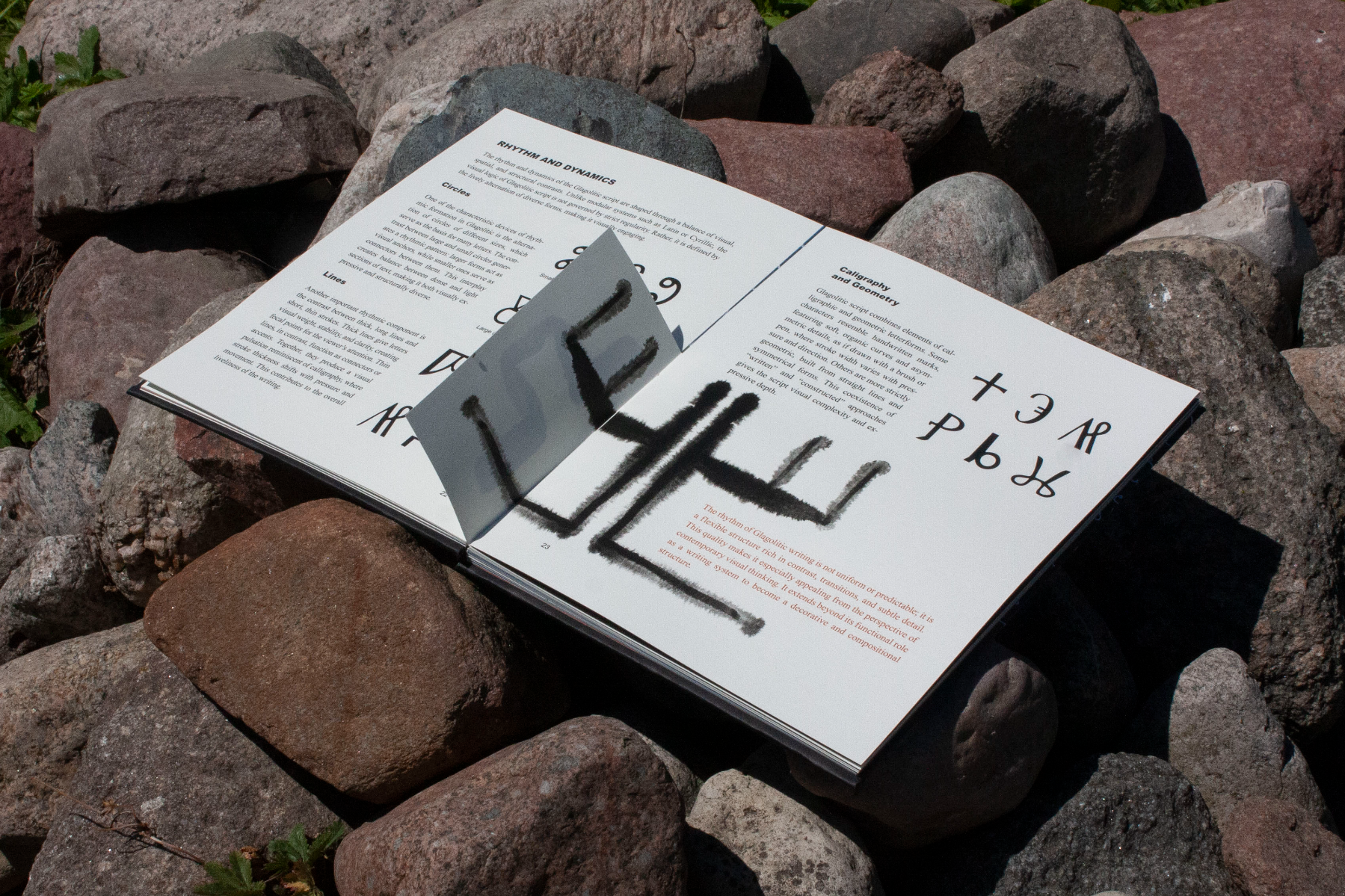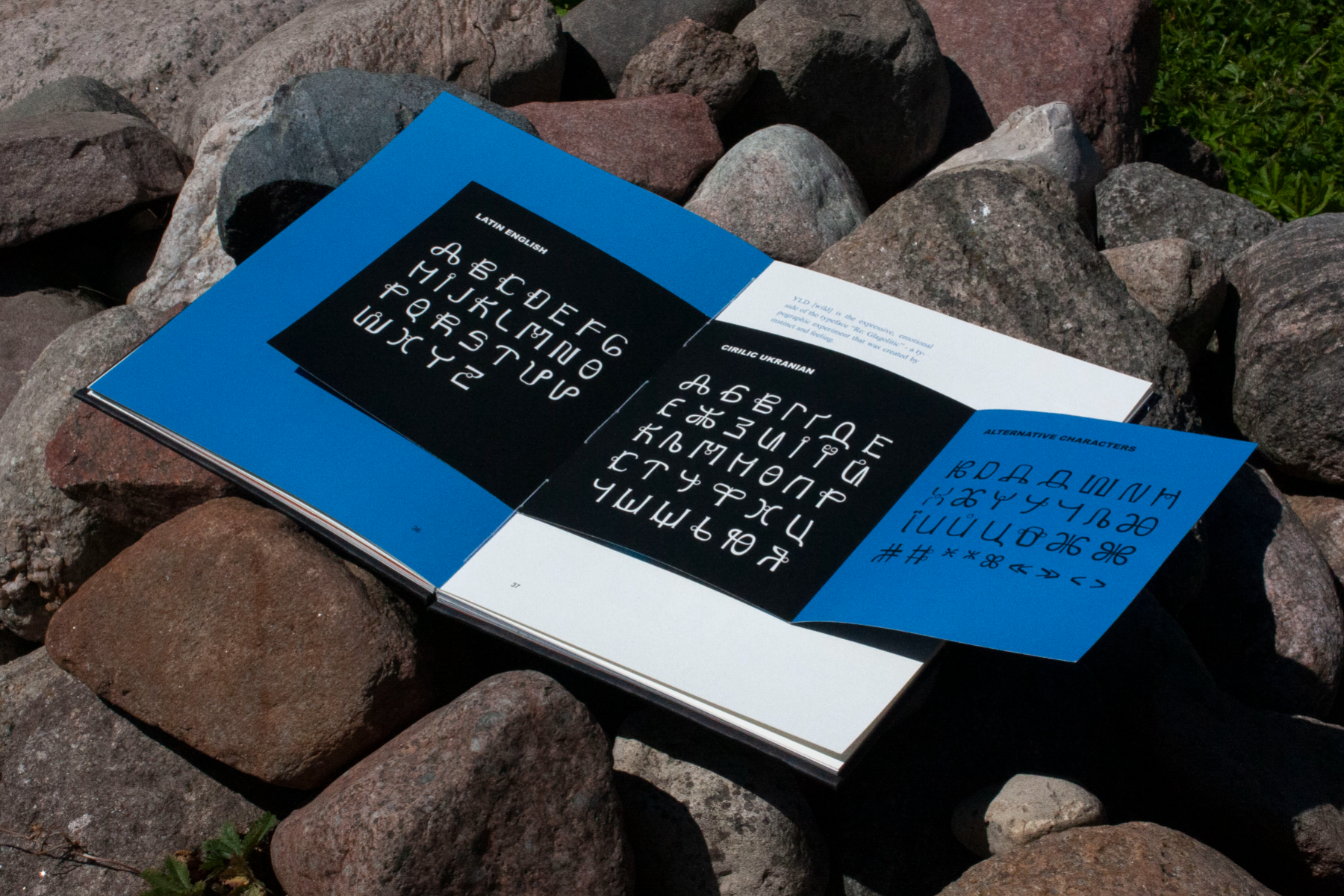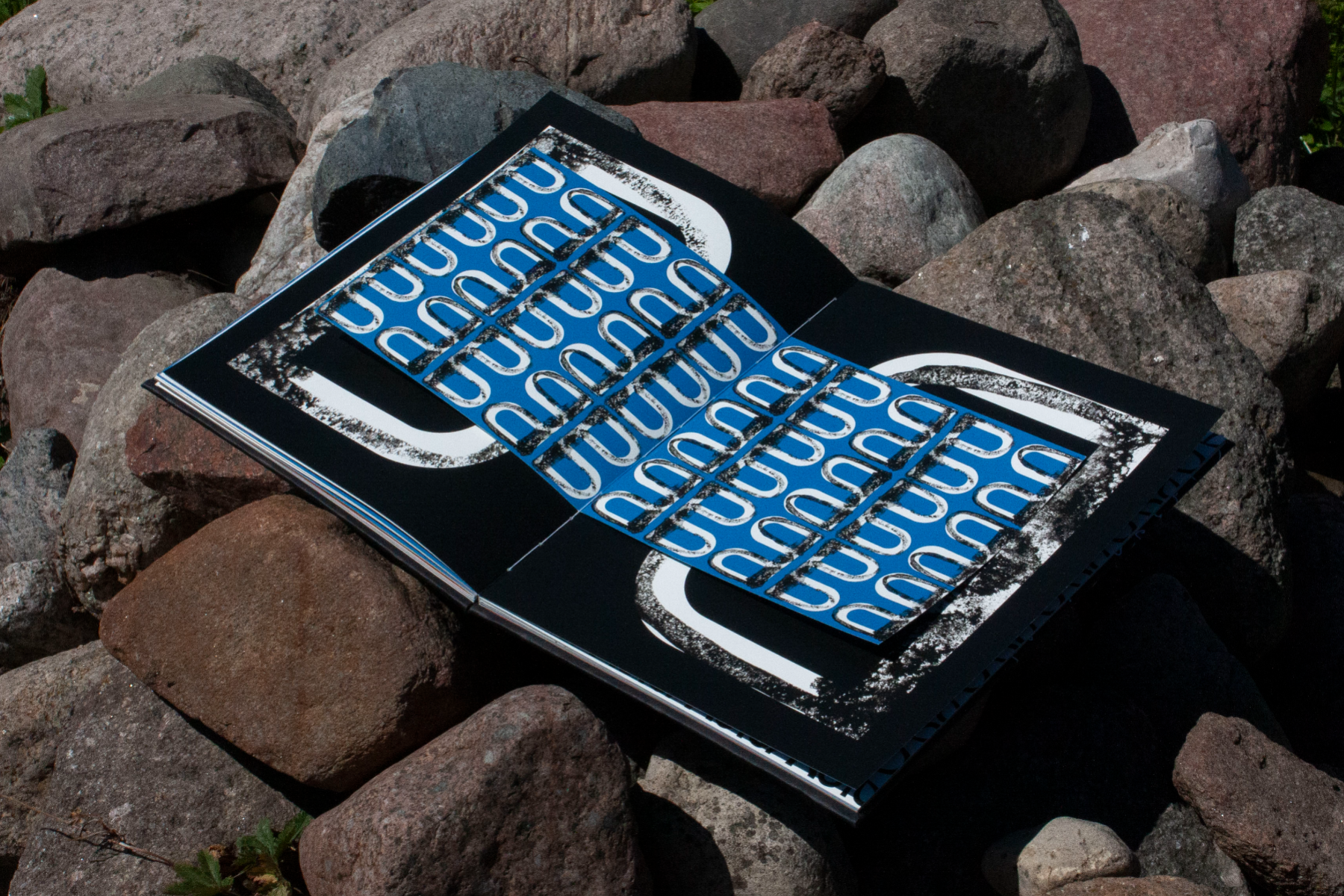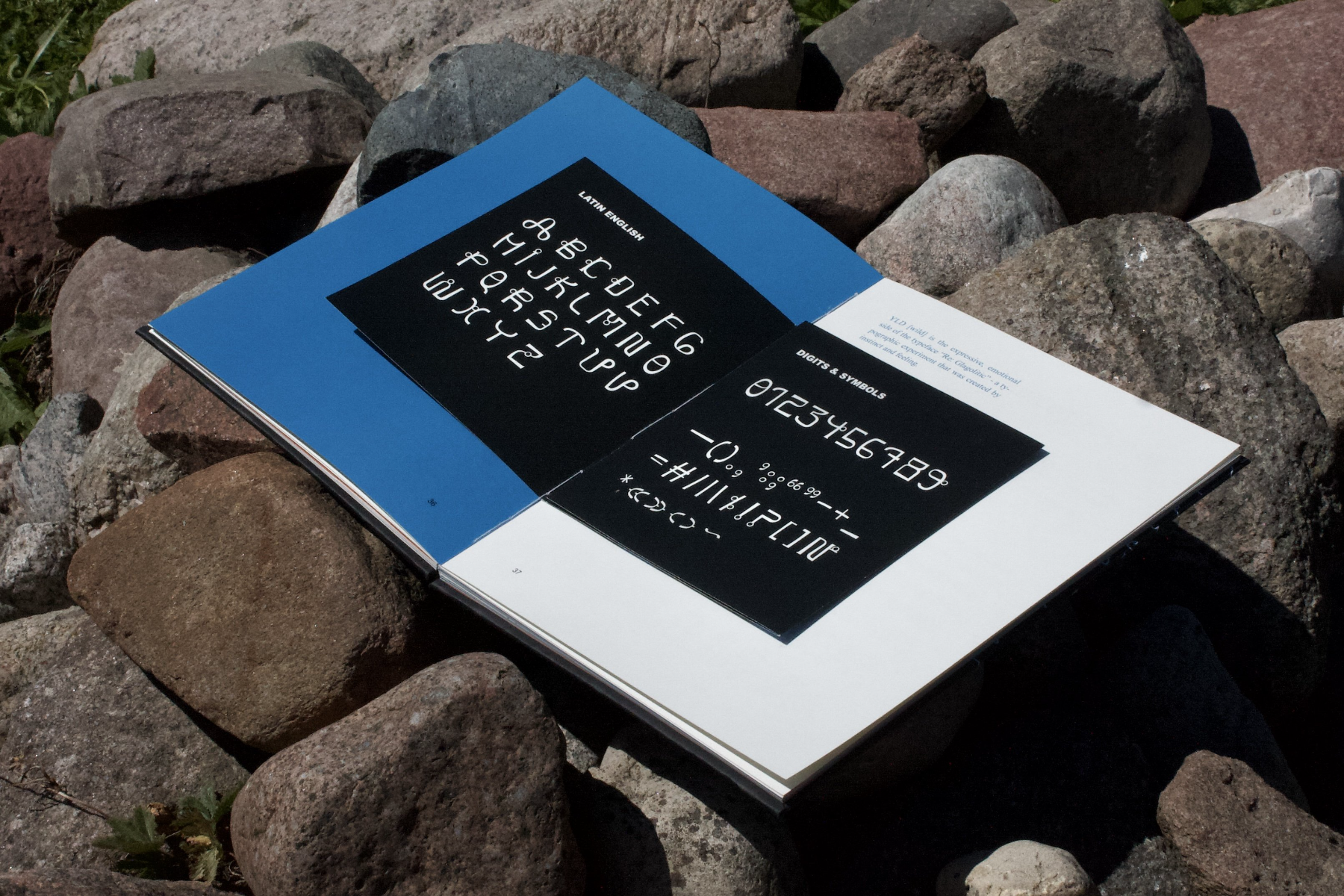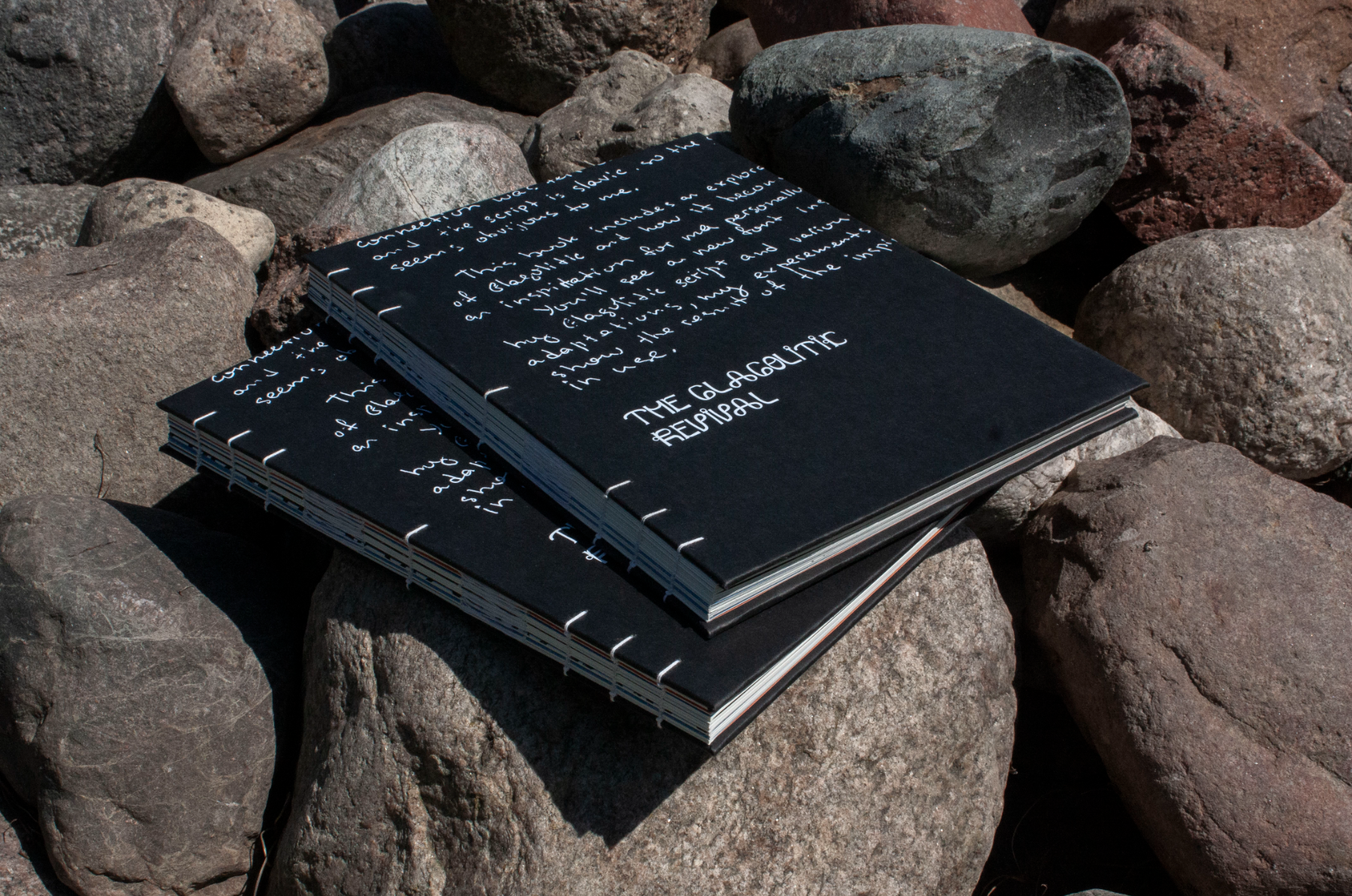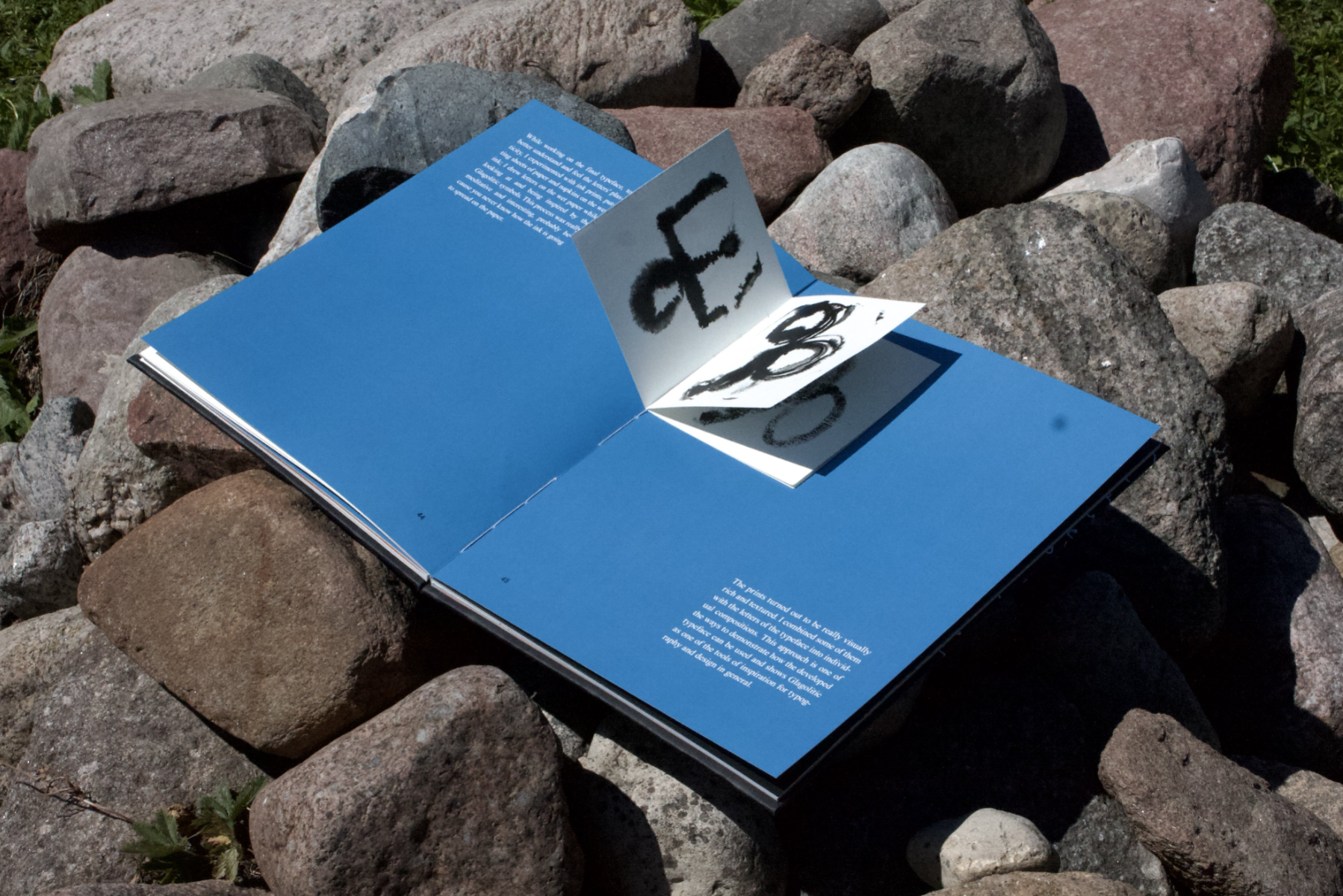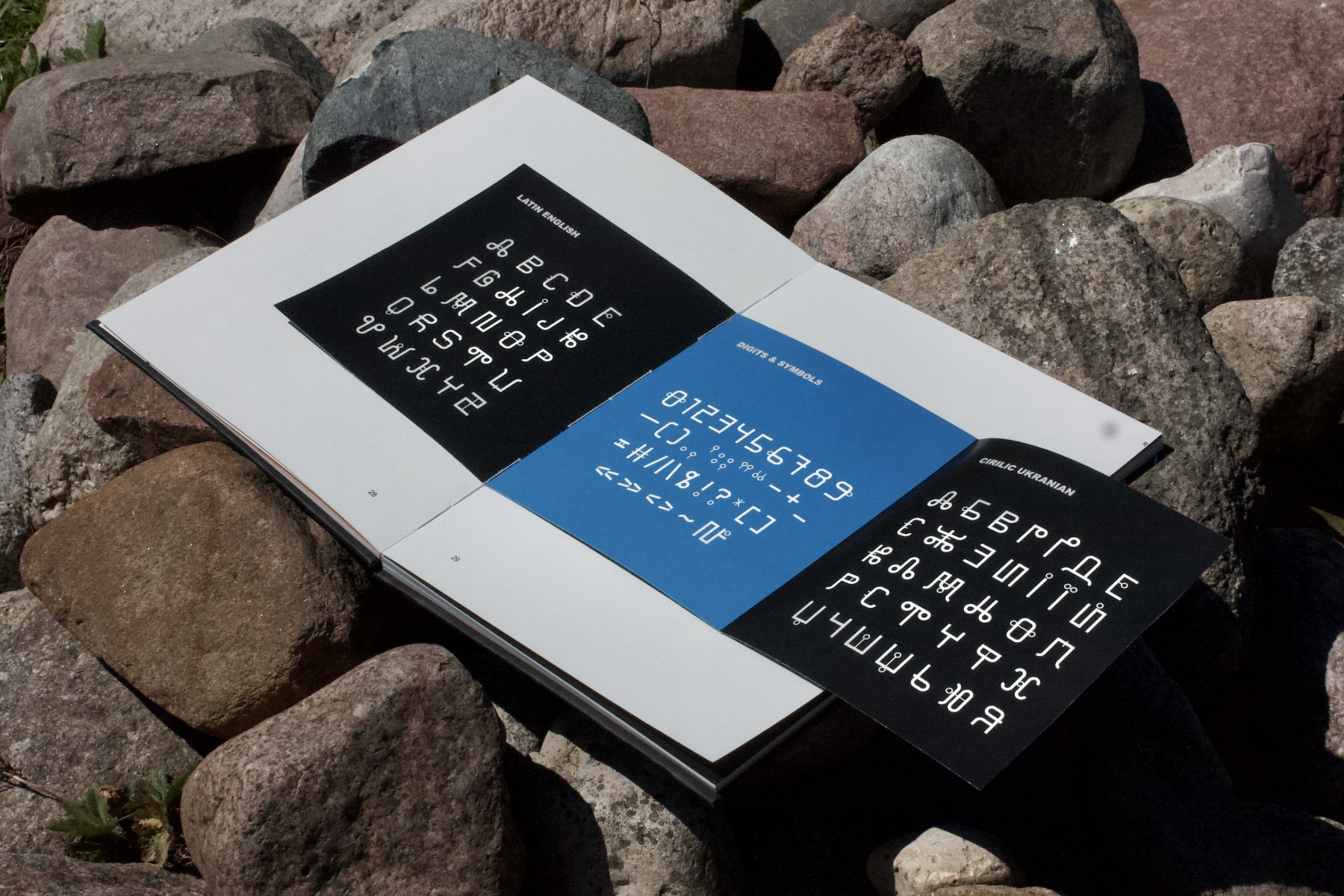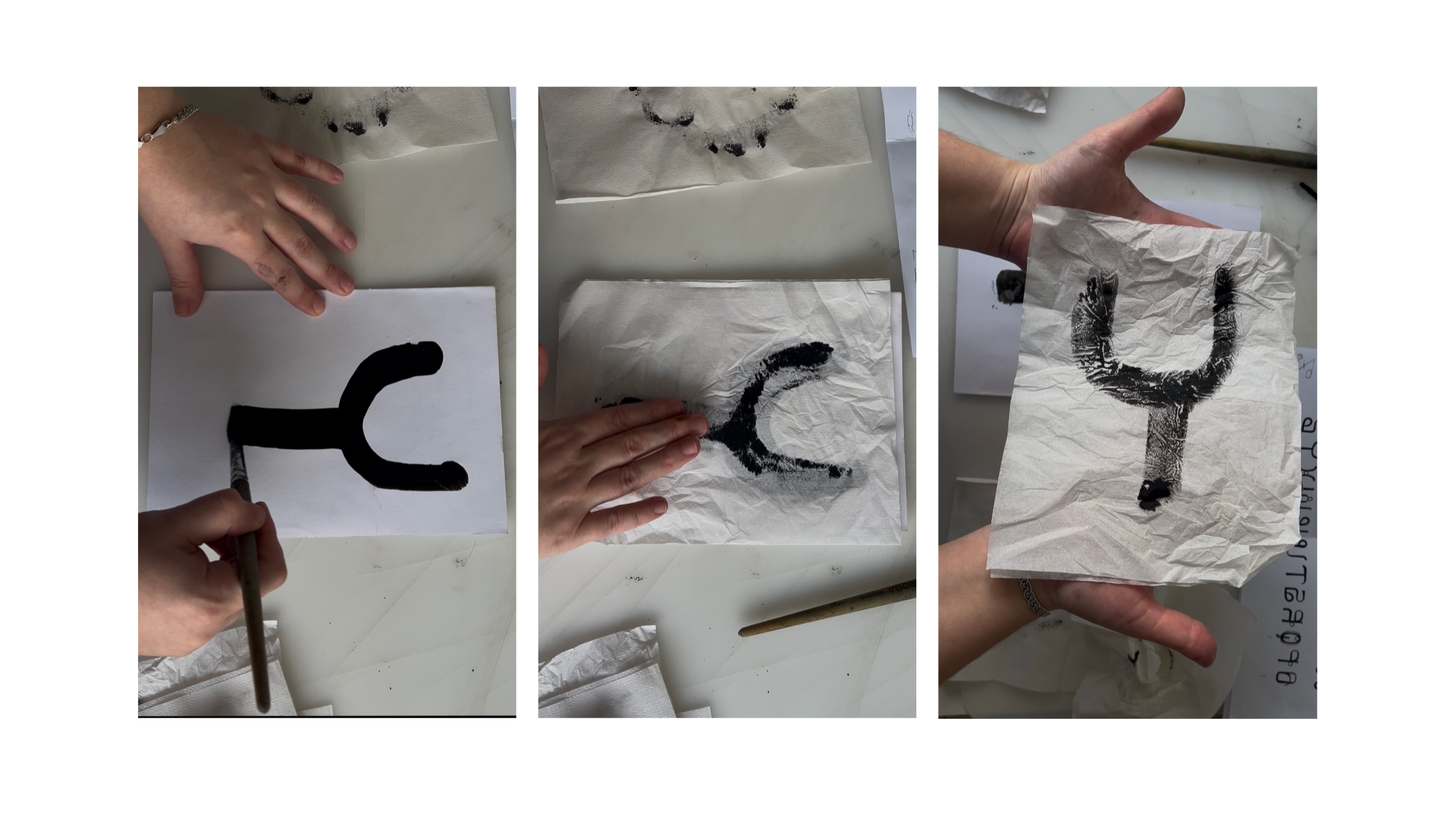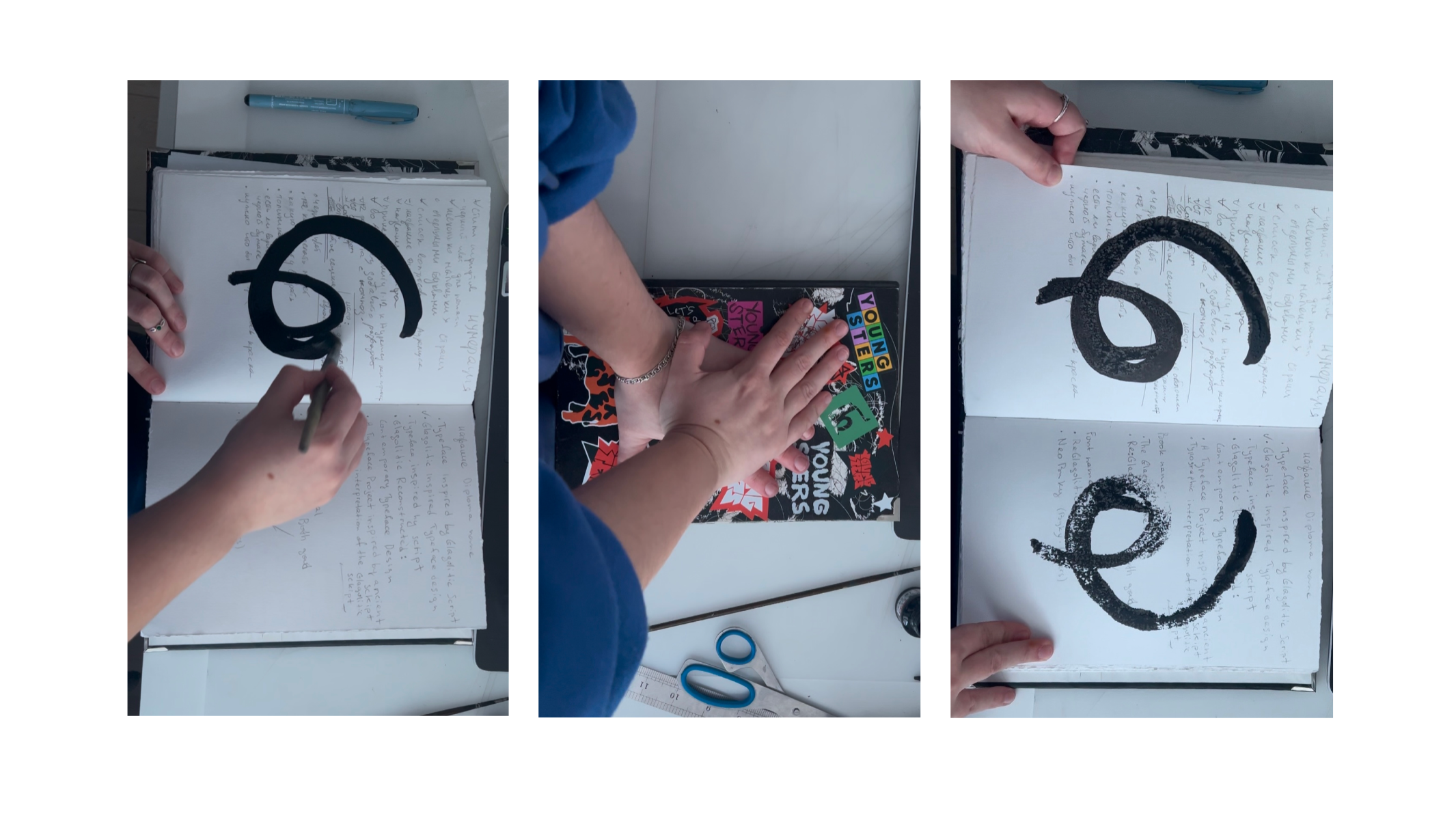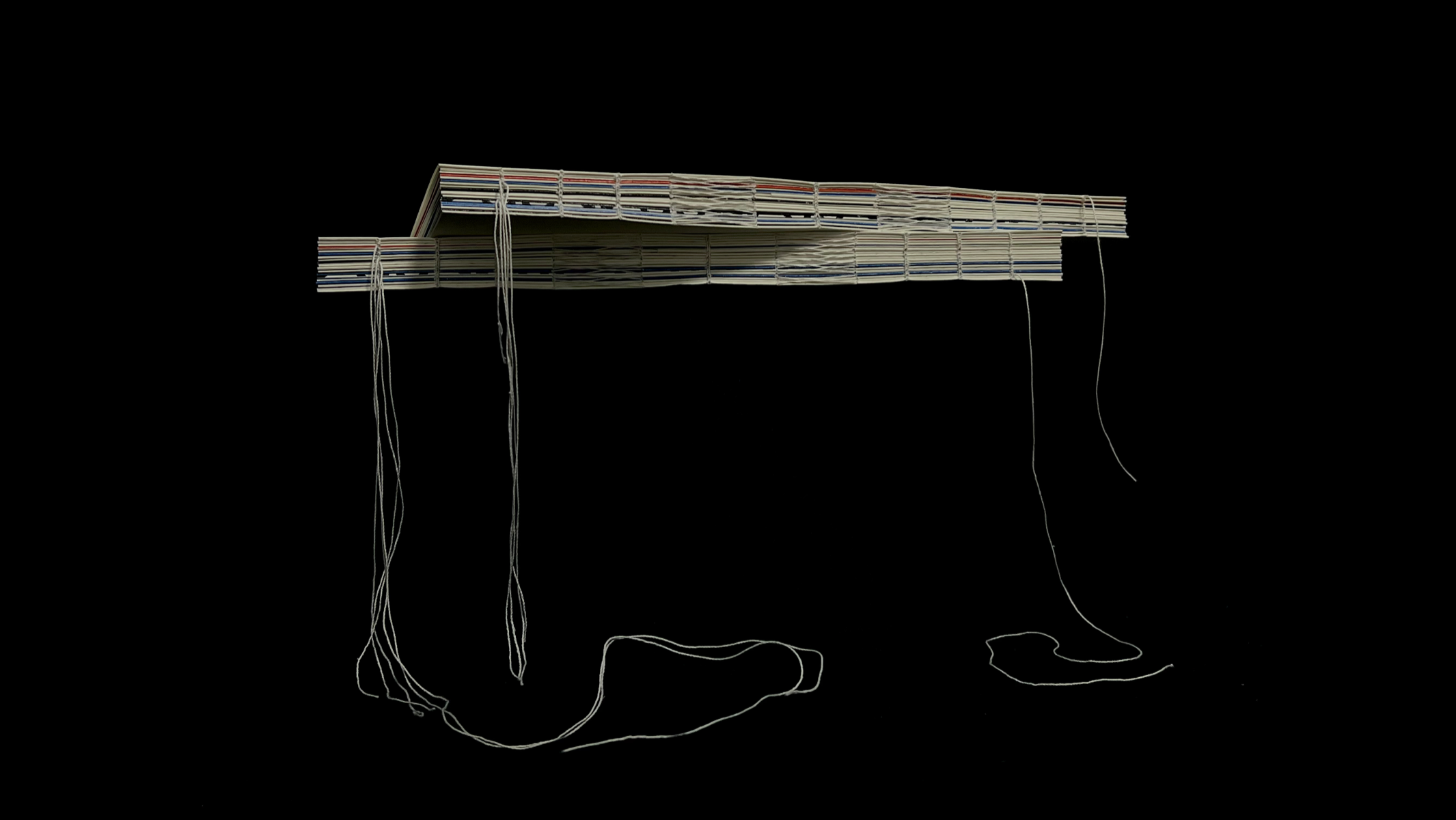
The project explores how the ancient Glagolitic script can inspire modern graphic design. Glagolitic, one of the oldest Slavic alphabets is almost unknown today. Motivated by its unique visual character and cultural depth, it led to the creation of two typefaces – Re: Glagolitic Futurity, a geometric and futuristic design and Re: Glagolitic Yld, a more alive and expressive interpretation. To present the typefaces, a book titled The Glagolitic Revival was developed, featuring seven chapters: from the history and visual analysis of the script to the design process and experimental typographic compositions. The aim was to demonstrate how ancient scripts can evolve into tools for contemporary visual storytelling. This project reimagines Glagolitic not as a relic of the past, but as a vibrant source of modern design inspiration.